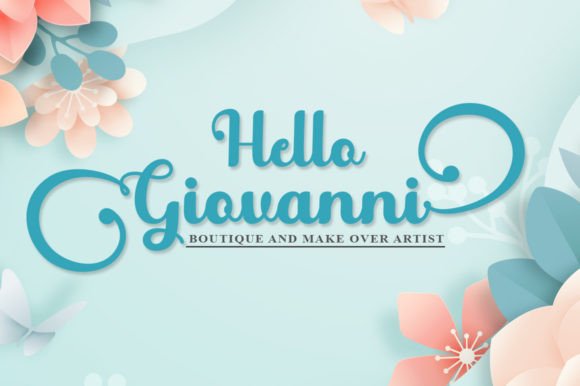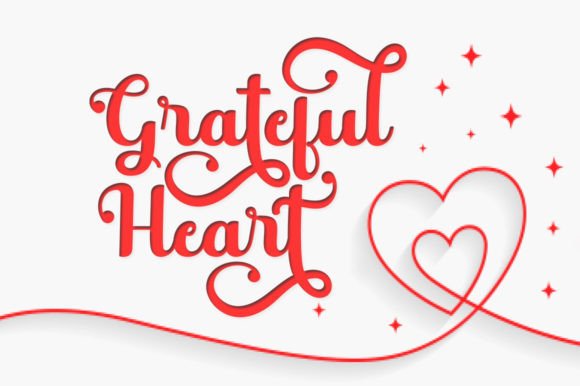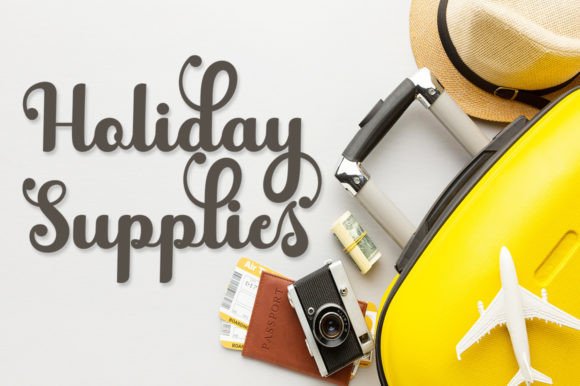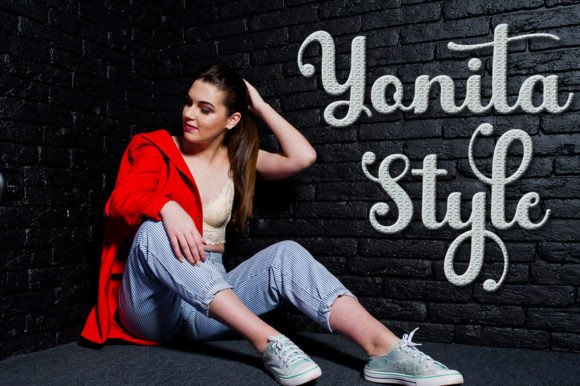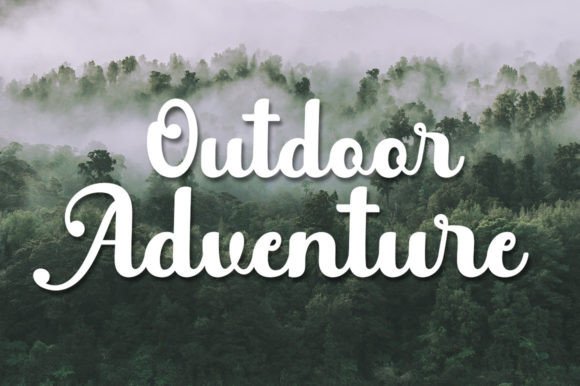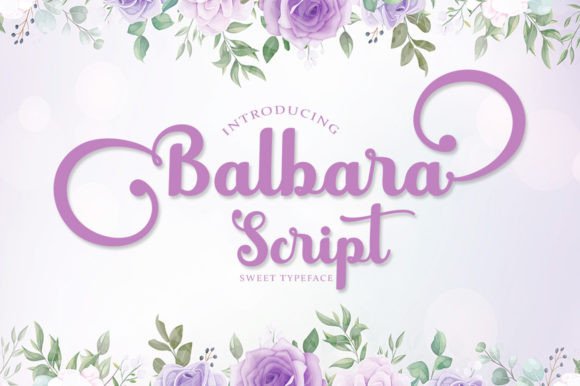
Introducing Balbara Script Font: Elevate Your Designs with Elegance
In the world of typography, a font can make or break the aesthetic of a design. For those seeking a touch of sophistication and elegance, the Balbara Script Font is an exceptional choice. This beautifully crafted handwritten font is designed to bring a sense of luxury and refinement to any project, making it perfect for fashion branding, editorial designs, and more.
The Essence of Balbara Script
Balbara Script is characterized by its smooth curves and fluid strokes, which give it a stylish and incredibly elegant feel. The font’s design is meticulous, with attention to detail that ensures it stands out in any application. Whether you’re working on a fashion brand’s logo, an editorial piece, or any other design project, Balbara Script offers the versatility and sophistication you need.
Perfect for Fashion Branding and Editorial Designs
Fashion and editorial designs require a level of sophistication and elegance that not all fonts can provide. Balbara Script, with its refined and graceful appearance, is perfectly suited for these applications. It can help elevate your brand or publication to new heights, giving it a distinctive and memorable look that captures the essence of style and luxury.
One of the most significant advantages of using the Balbara Script Font is the endless possibilities it offers for creative expression. From elegant headings and titles to sophisticated body text, this font can be used in a variety of contexts. Its versatility makes it an excellent addition to any designer’s toolkit, allowing for the creation of stunning and cohesive designs that stand out.
Balbara Script Font is PUA (Private Use Area) encoded, which means that accessing all glyphs and ligatures is straightforward. This encoding allows designers to easily access and use the font’s extended features, including swashes, alternates, and ligatures, without the need for complicated software or workarounds. This feature ensures a seamless design experience, enabling you to focus on creativity rather than technical challenges.
Why Choose Balbara Script Font?
- Elegance and Sophistication: Offers a stylish and elegant look perfect for high-end designs.
- Versatility: Suitable for a wide range of design projects, from fashion branding to editorial content.
- Easy to Use: PUA encoded for easy access to all glyphs and ligatures.
- High-Quality Design: Crafted with attention to detail for a refined appearance.
Tips for Using Balbara Script Font
To make the most of Balbara Script Font, consider the following tips:
- Pair with Complementary Fonts: Combine Balbara Script with simpler fonts for contrast and visual interest.
- Experiment with Sizes: Use varying font sizes to create hierarchy and emphasize key elements.
- Play with Ligatures: Take advantage of the font’s ligatures for a more customized look.
- Consider Color: Choose colors that complement the elegance of the font, such as neutral tones or rich jewel tones.
Balbara Script Font is a powerful tool for designers looking to infuse their projects with elegance and sophistication. Its smooth curves, stylish appearance, and versatility make it an excellent choice for a wide range of applications. With its PUA encoding, using this font is as easy as it is enjoyable. Whether you’re working on fashion branding, editorial designs, or any other project that demands a touch of luxury, Balbara Script Font is sure to exceed your expectations.